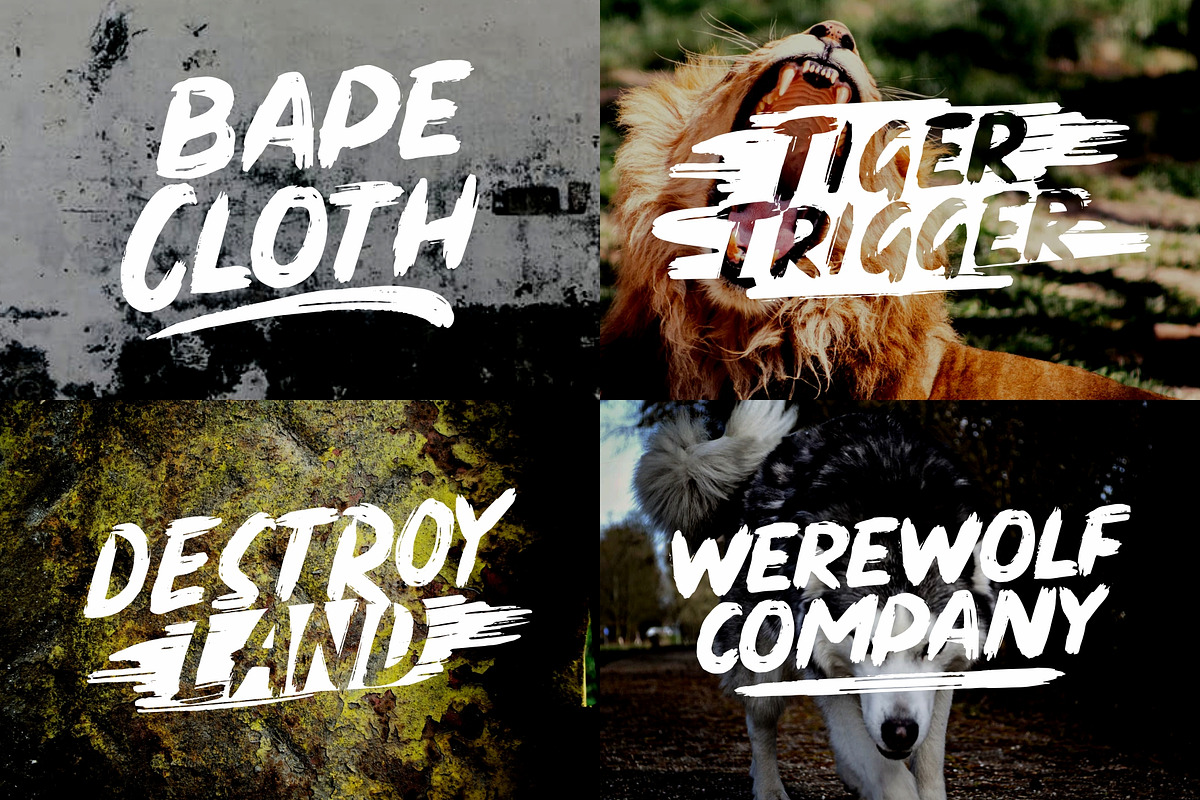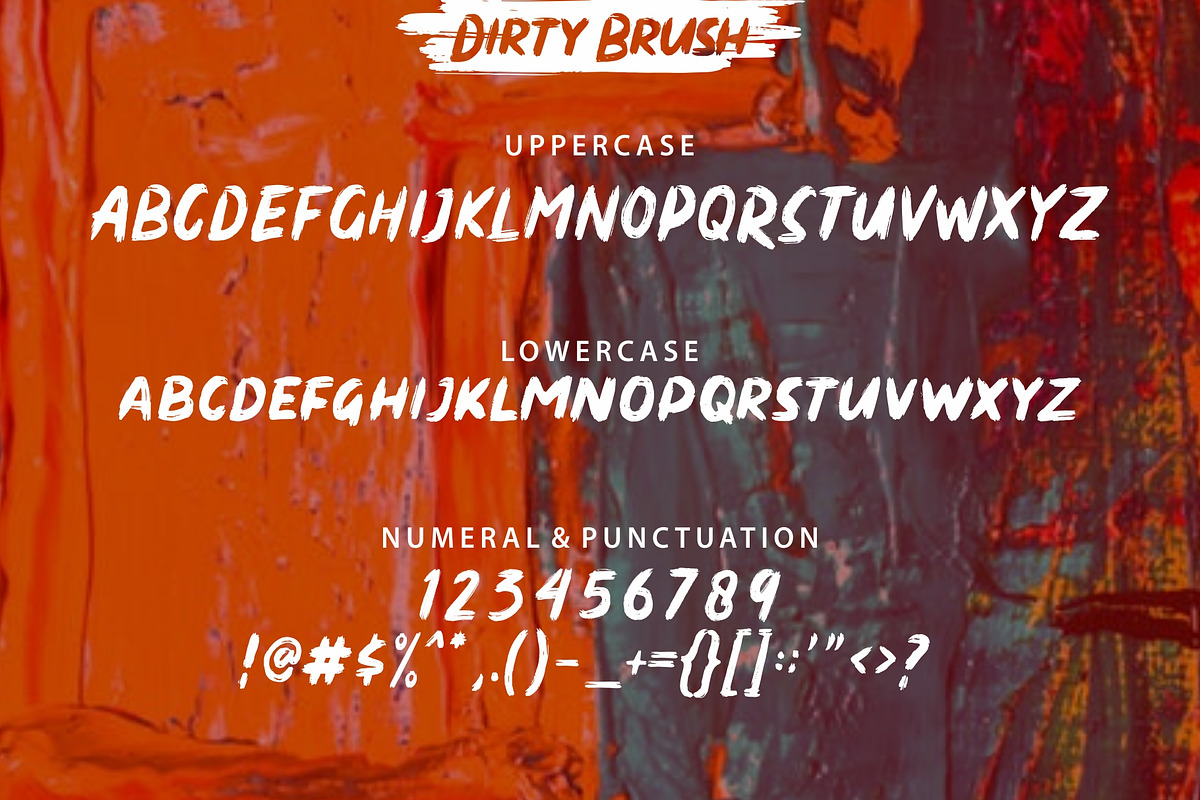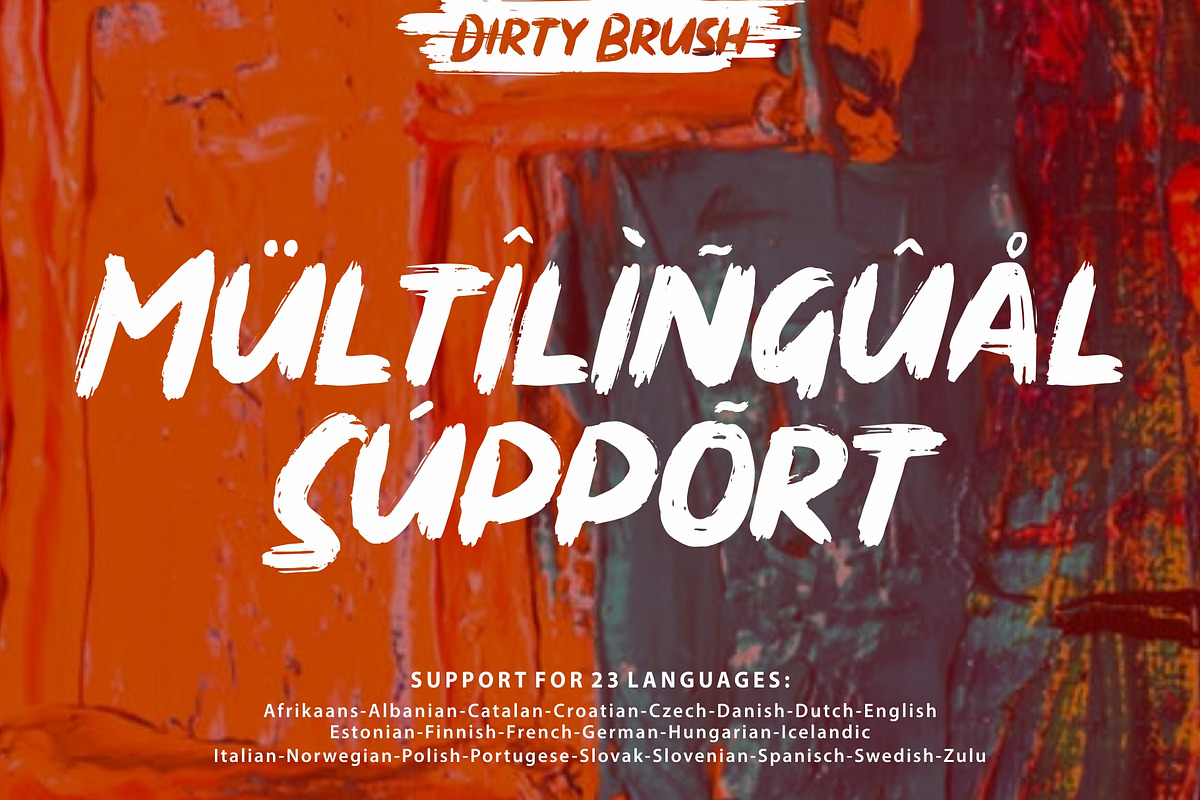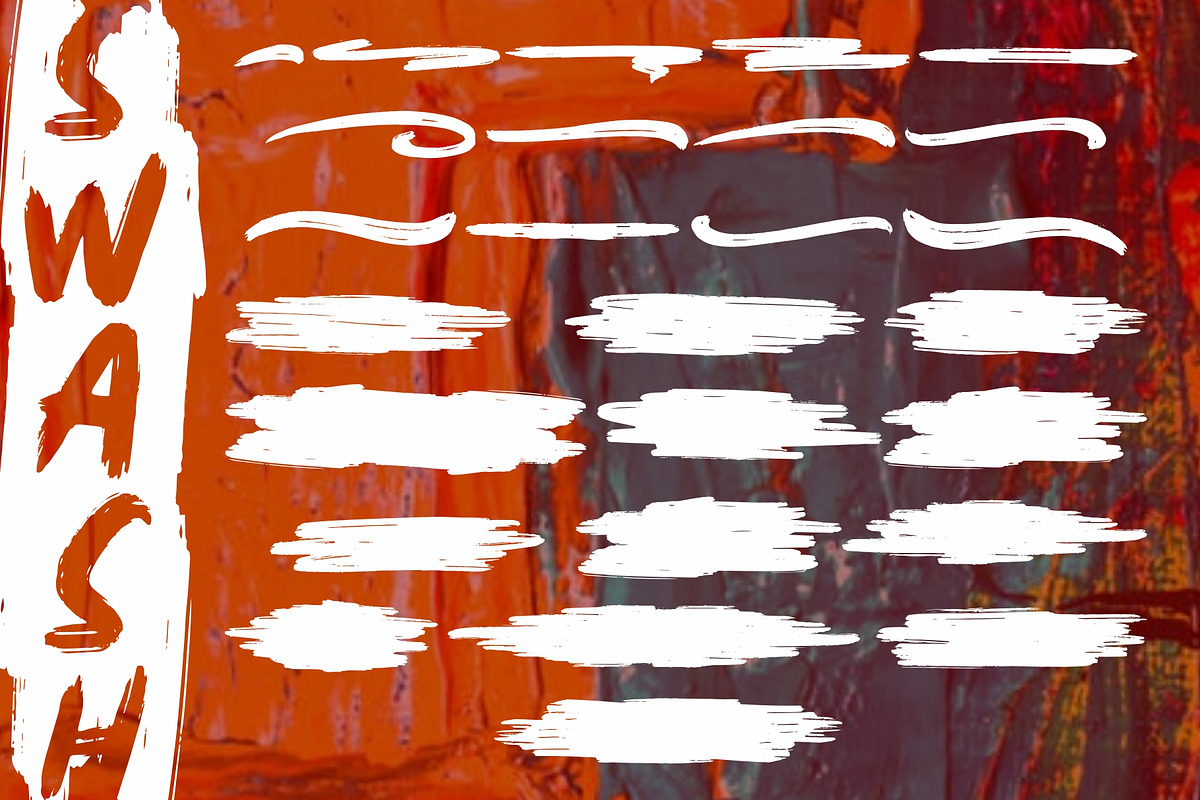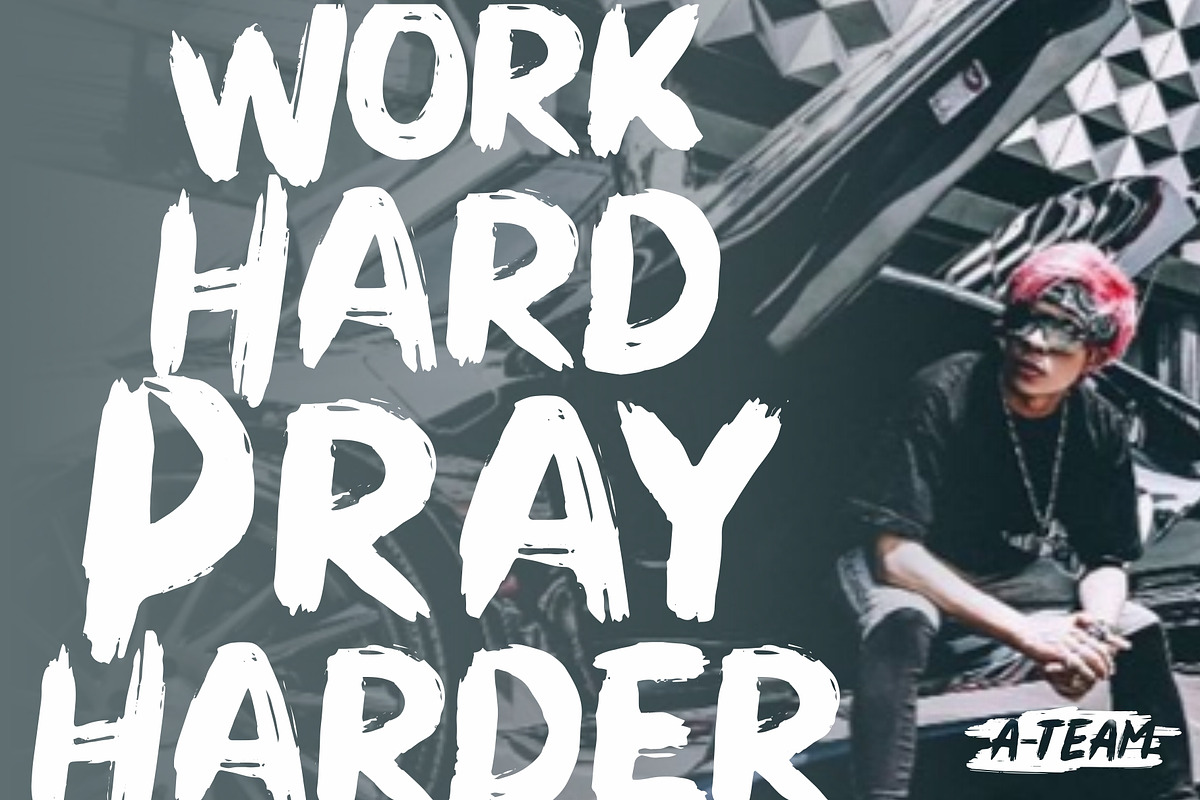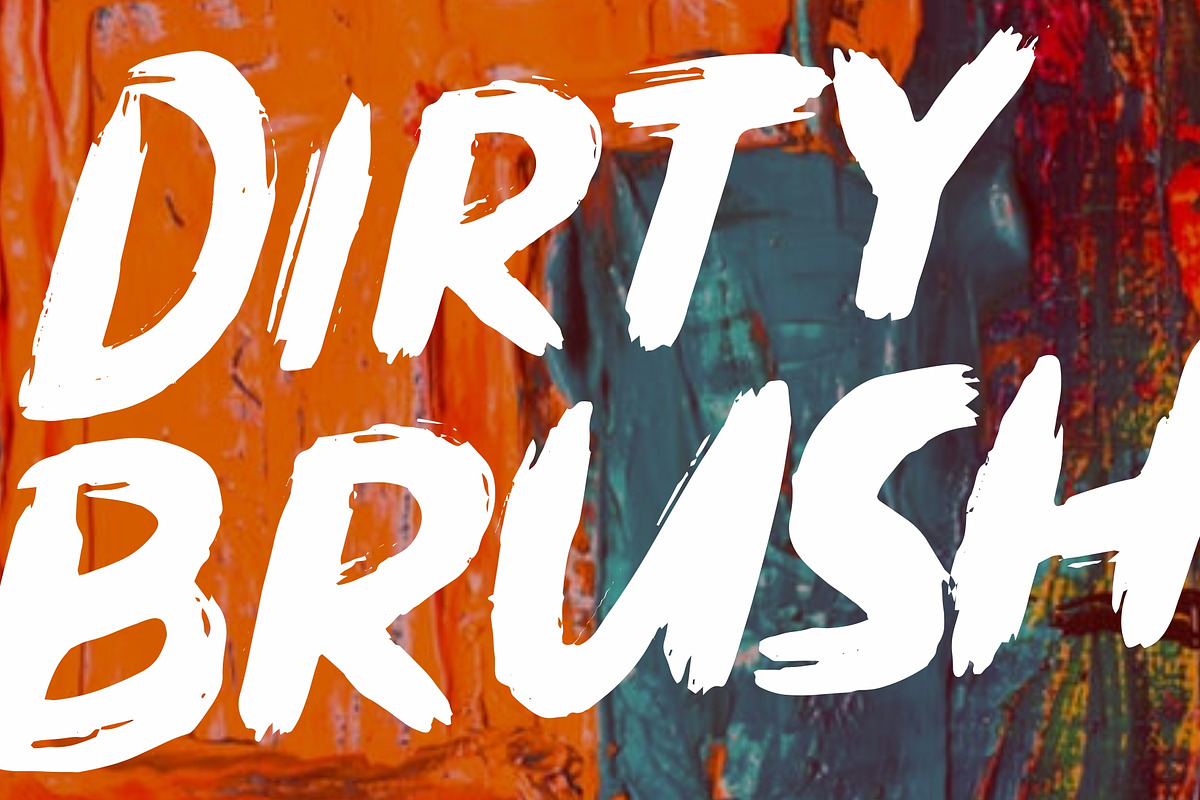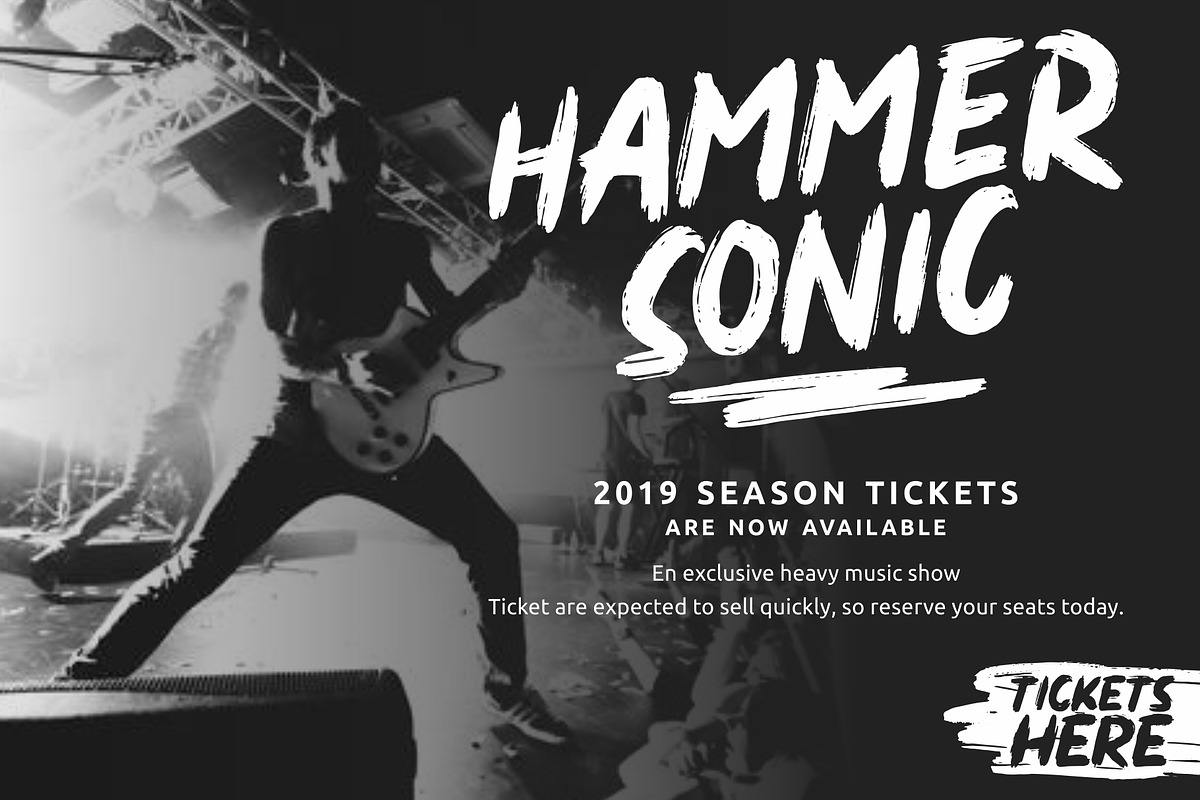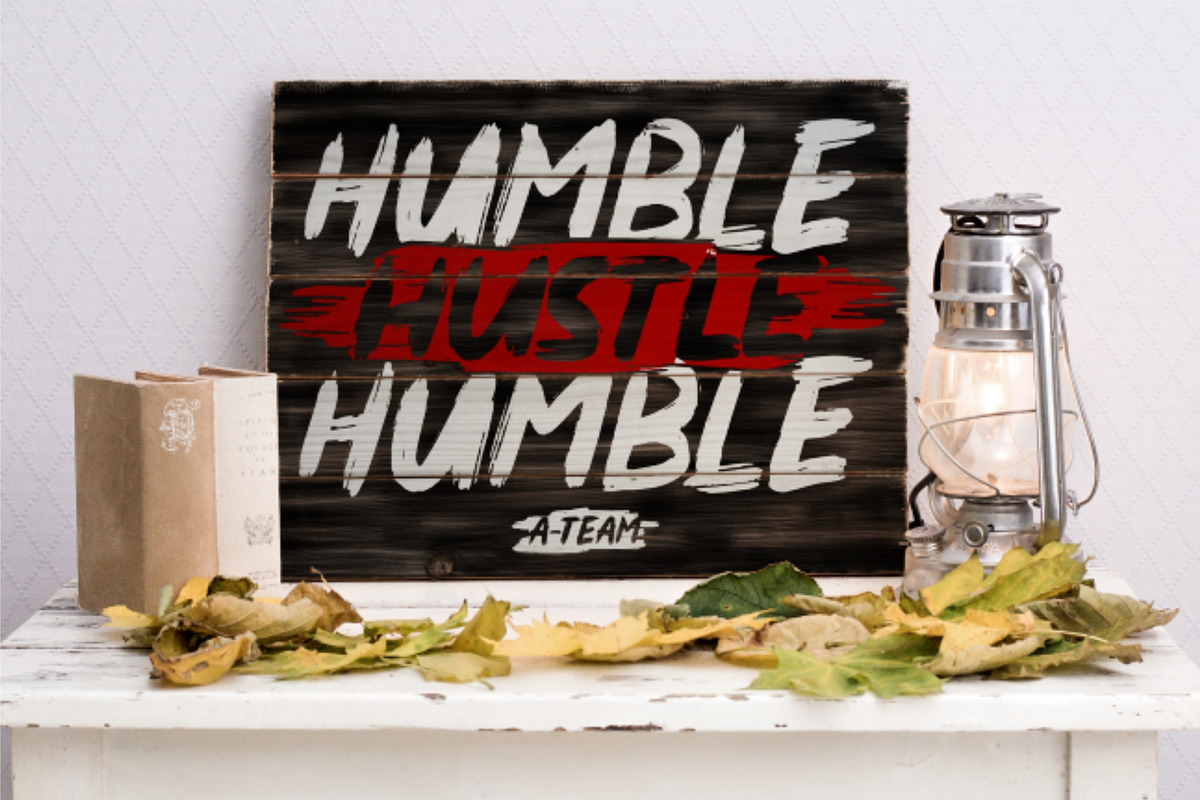
Dirty Brush Font
Introducing DIRTY BRUSH Font
DIRTY BRUSH combines attractive curves with a fresh urban edge; delivering a stylish script which is guaranteed to add an eye-catching appeal to your logo designs, brand imagery, handwritten quotes, product packaging, merchandise & social media posts
Dirty Brush Font by Garisman Std fits naturally into Branding, posters, packaging, typography.